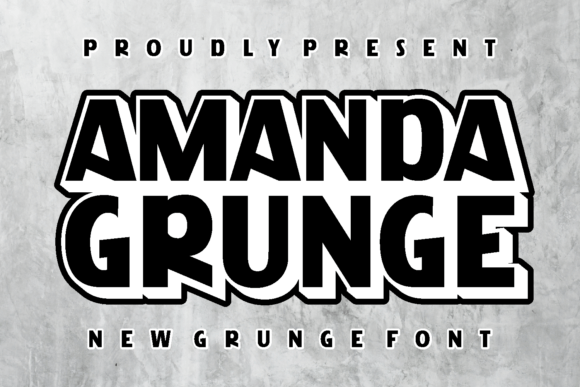
Introduction to Amanda Grunge Font
Immerse yourself in the evocative character of Amanda Grunge.
This text style seamlessly combines the raw appeal of grunge fonts with the undeniable elegance of old-style typefaces Experience the robust thickness of our design, clearly inspired by the authenticity of the past while still feeling innovative and modern.